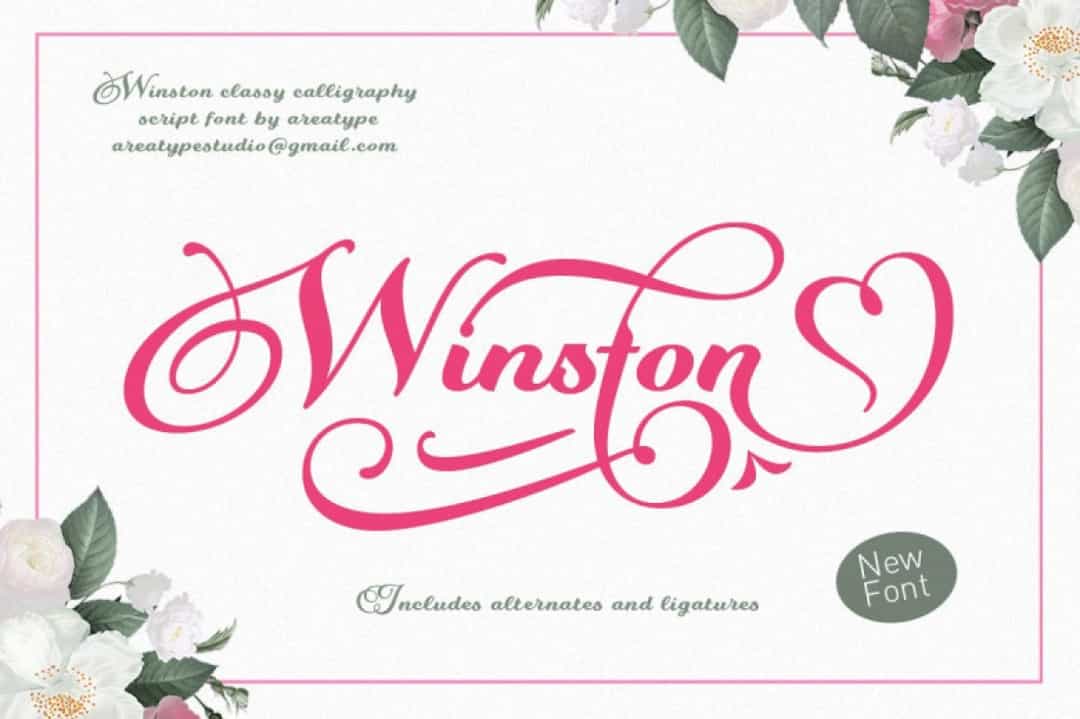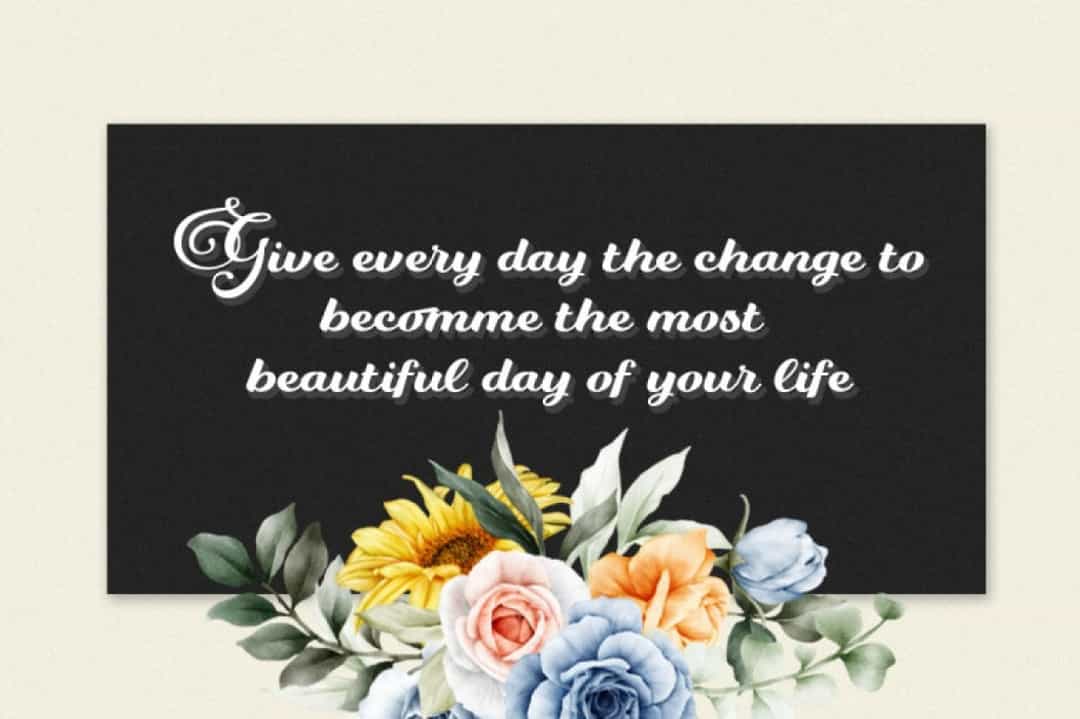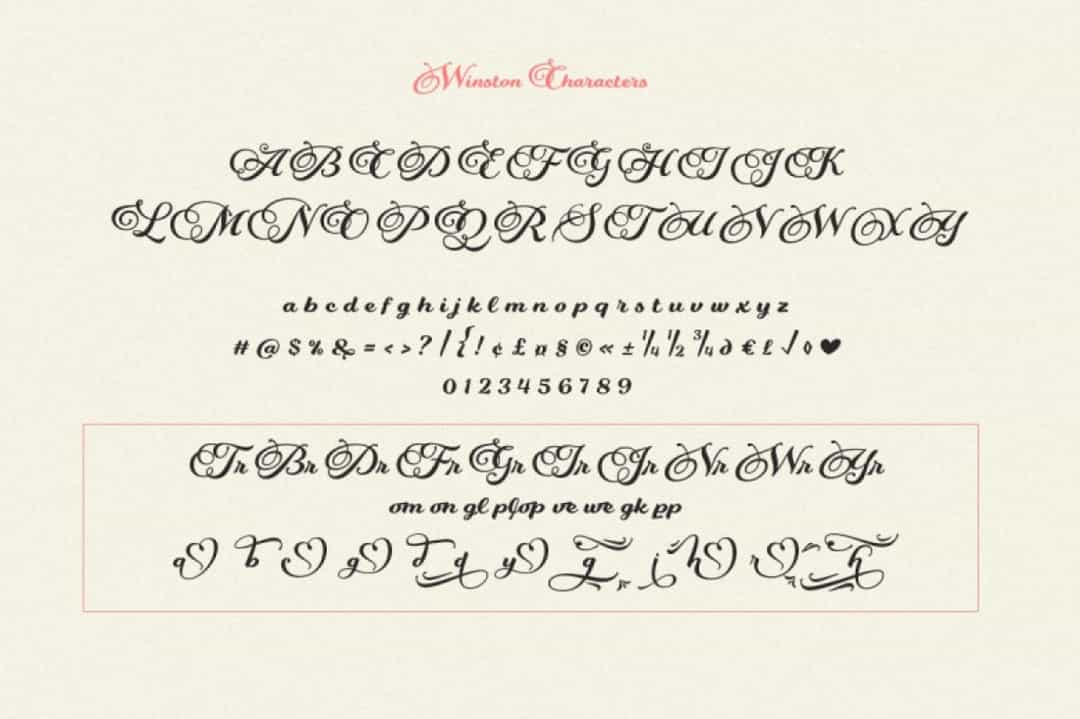
Welcome to Winston’s elegant The Script Font It is a contemporary beautiful casual calligraphic typeface with an inviting wash. Perfect for logos, titles signatures lettersheads wedding invites nameplates labels posters newsletters badges badges etc etc